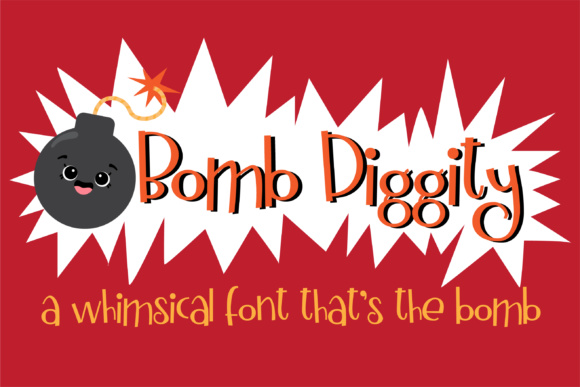
Introducing the Bomb Diggity font – a playful and energetic sans serif font that's sure to add a touch of whimsy to any project. With its youthful vibe and eye-catching curves, Bomb Diggity is the perfect choice for creating fun and engaging designs.
Whether you're designing social media graphics, invitations, or website headers, Bomb Diggity will add a touch of personality and charm. Its playful curves and bouncy terminals will make your text stand out from the crowd, while its legible letterforms ensure that your message is communicated clearly.
With Bomb Diggity, your designs will be anything but boring. Unleash your inner creativity and let your imagination soar with this whimsical and delightful font.
* Add a touch of whimsy to your designs with Bomb Diggity's playful curves.
* Make your text stand out with Bomb Diggity's eye-catching letterforms.
* Communicate your message clearly with Bomb Diggity's legible design.